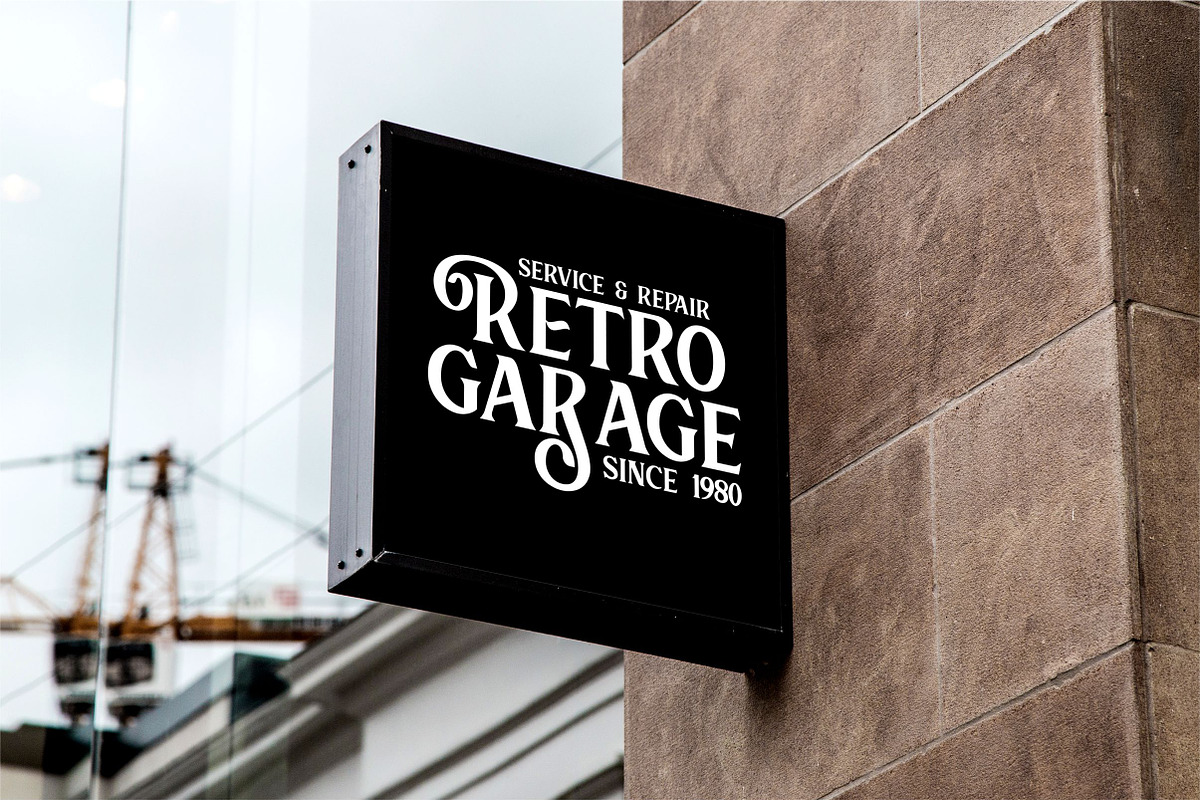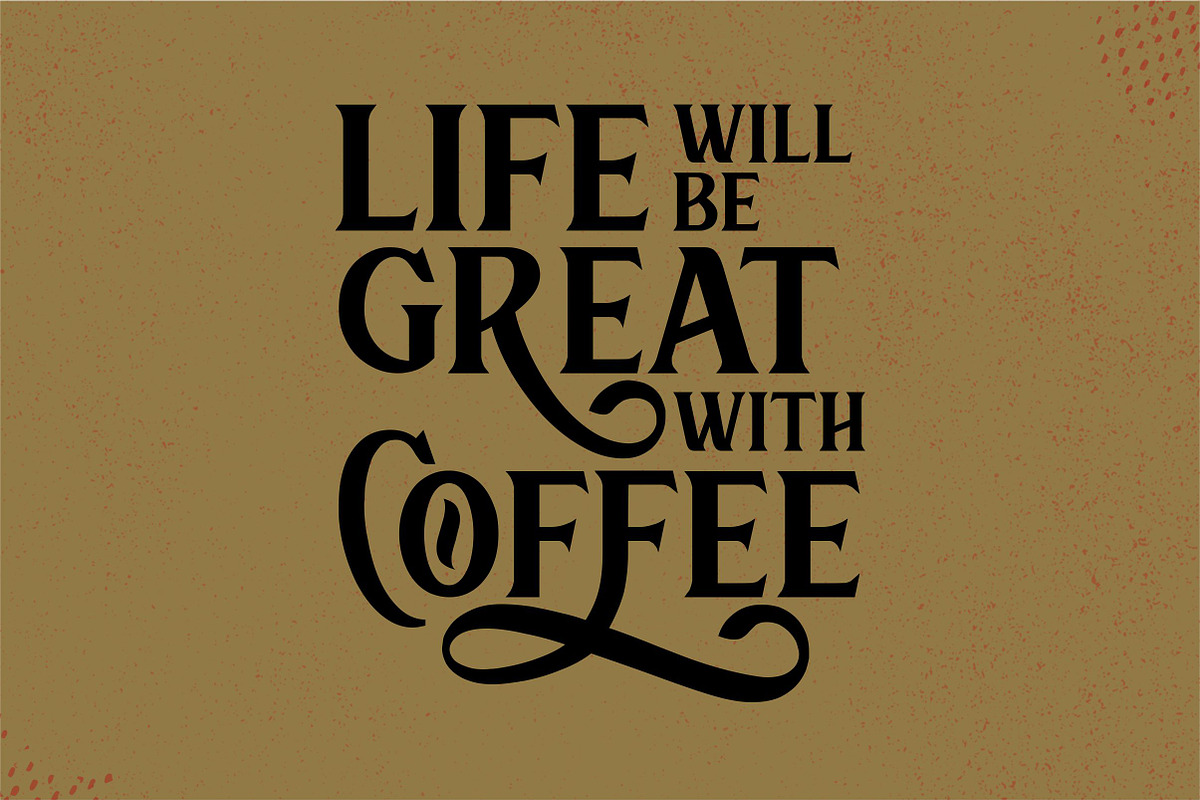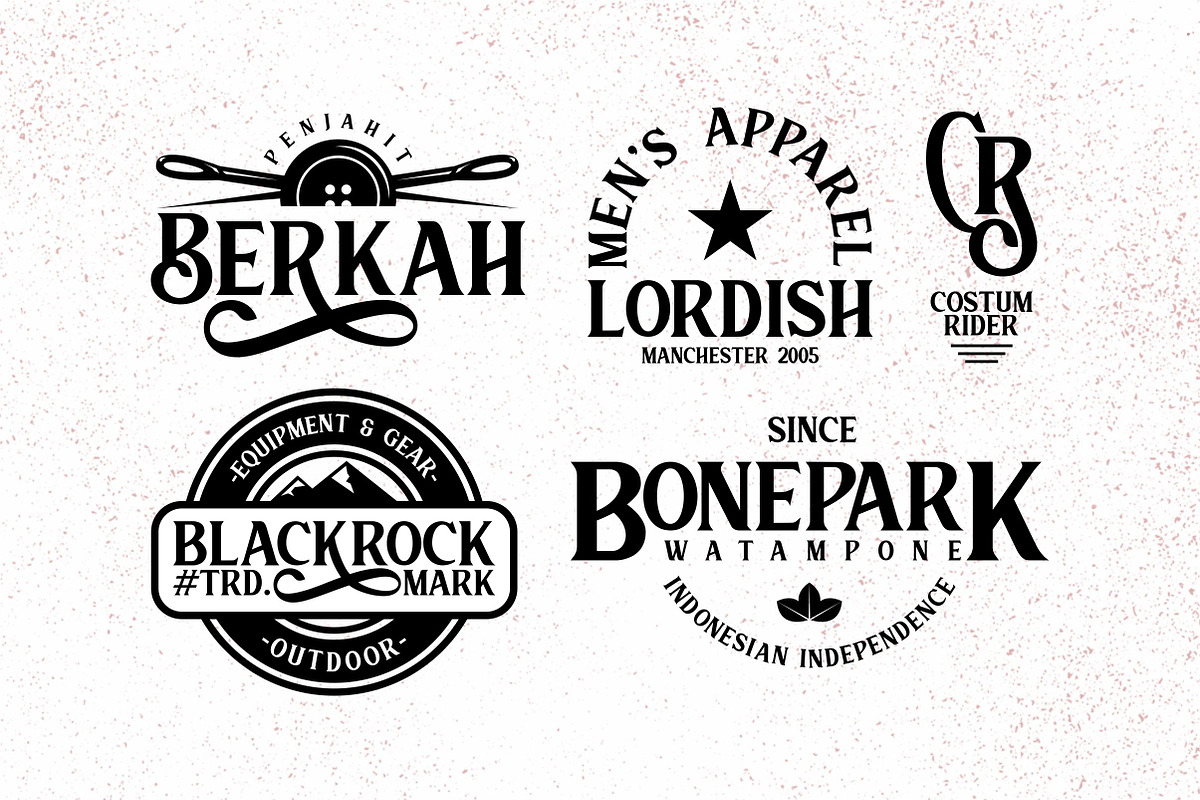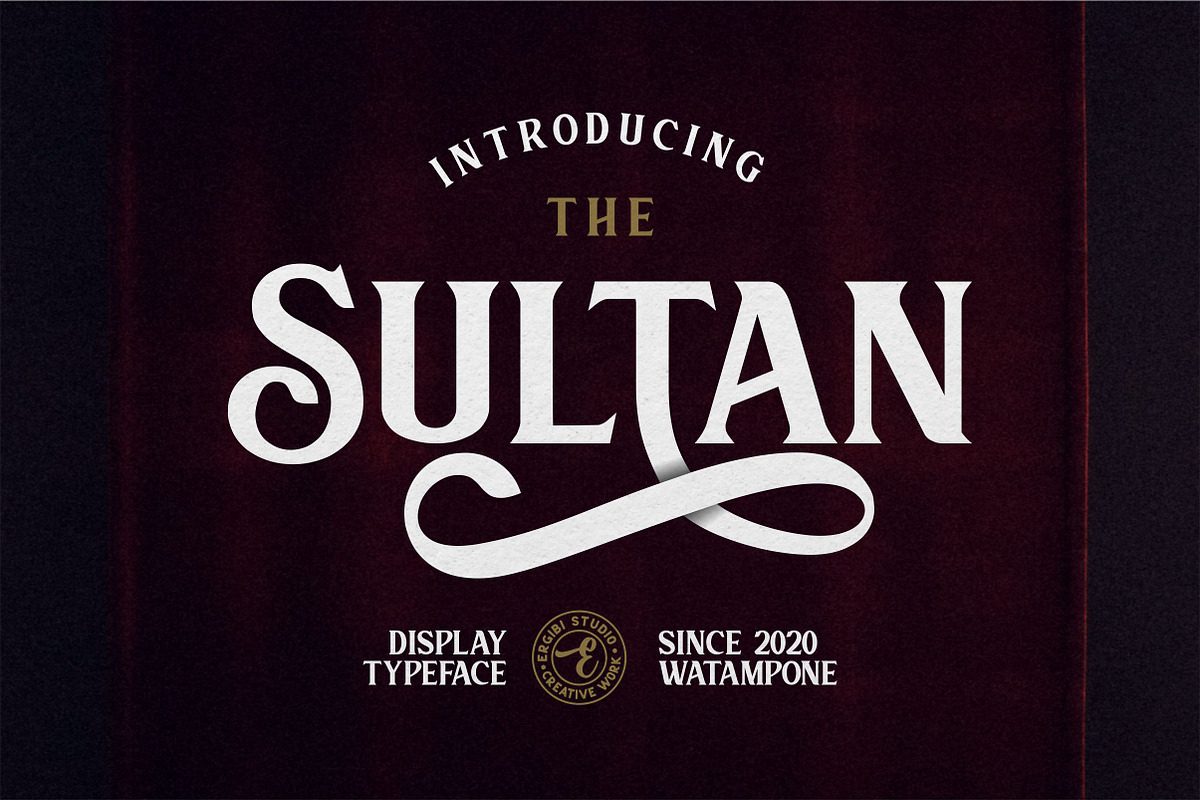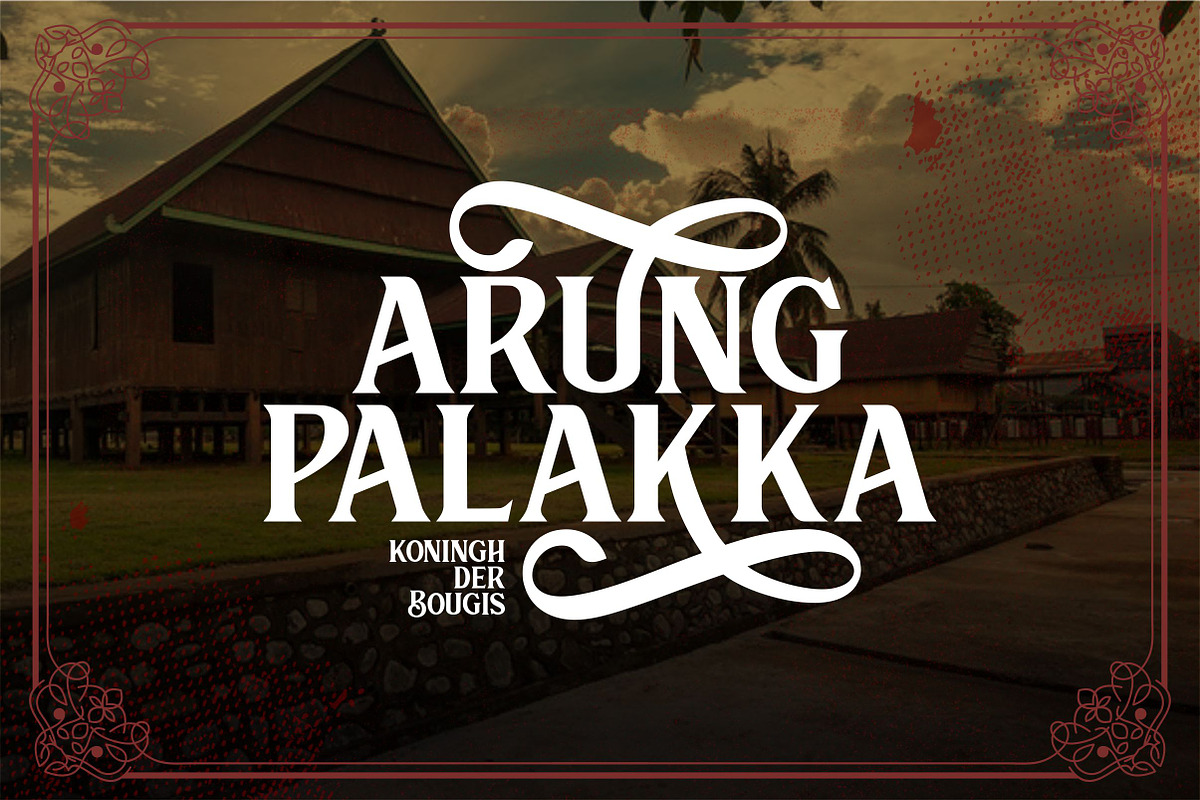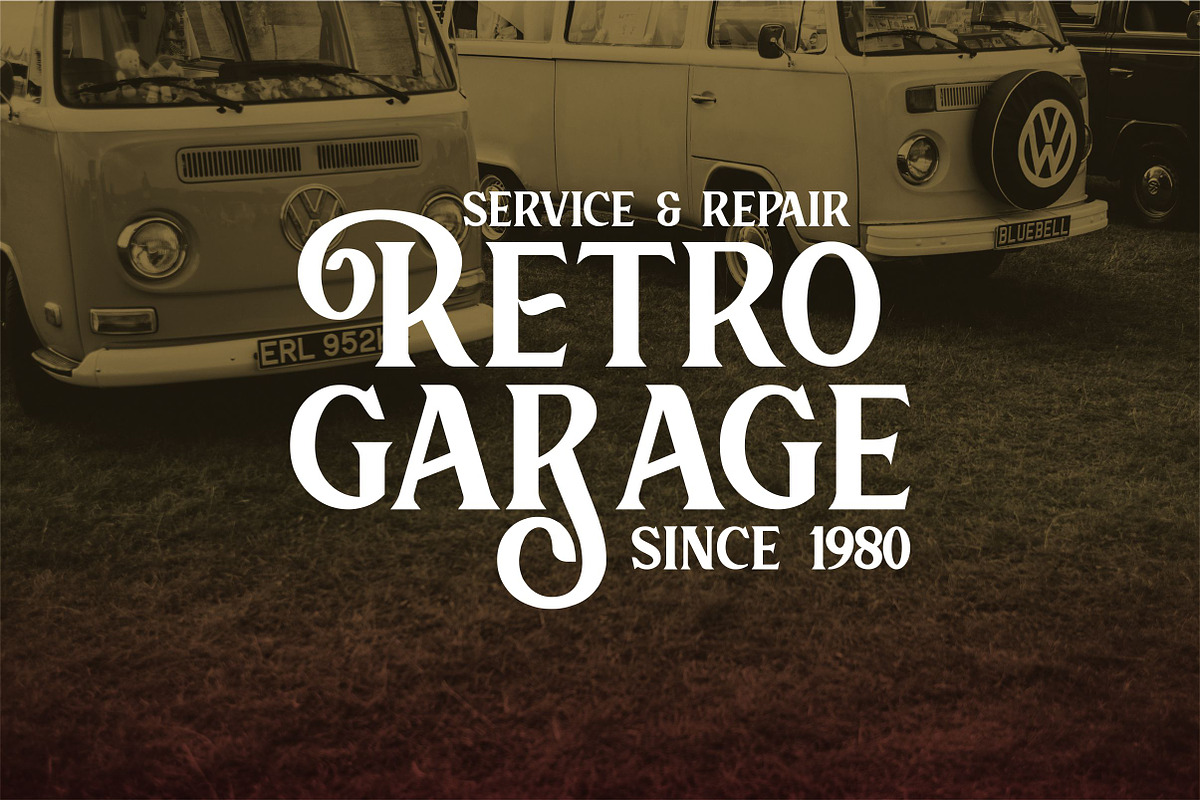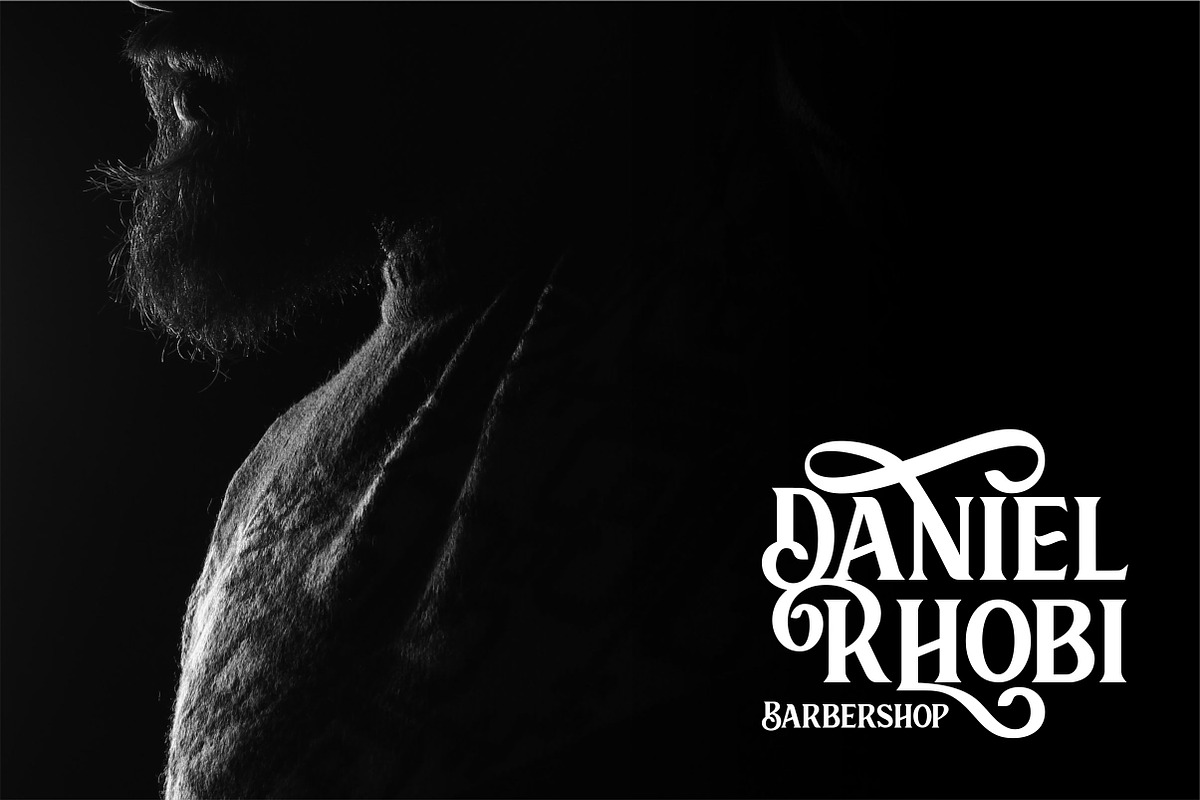
Sultan - Typeface Font
"SULTAN" is a serif font. It has a vintage form with the addition of modern decorative and minimalist shape. Fonts consist of special uppercase letters and alternate characters. fonts are multilingual support and are perfect for logos, branding, mockups, t-shirts, branding, and various needs that want this vintage form
- Fonts consist of special uppercase letters and alternate characters.
- fonts are multilingual support and are perfect for logos, branding, mockups, t-shirts, branding, and various needs that want this vintage fo
Sultan - Typeface Font by ErgibiStudio fits naturally into Branding, posters, packaging, typography.